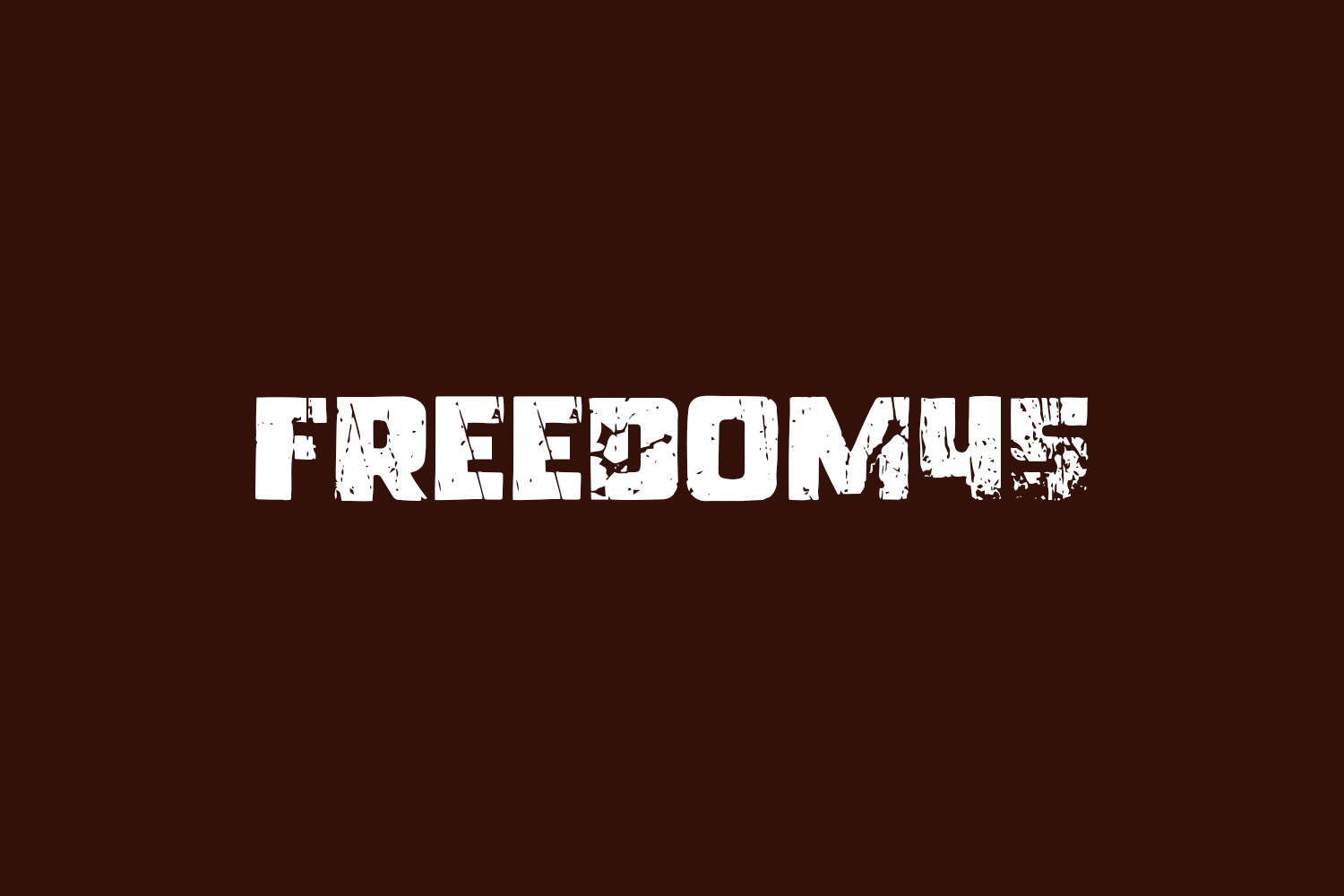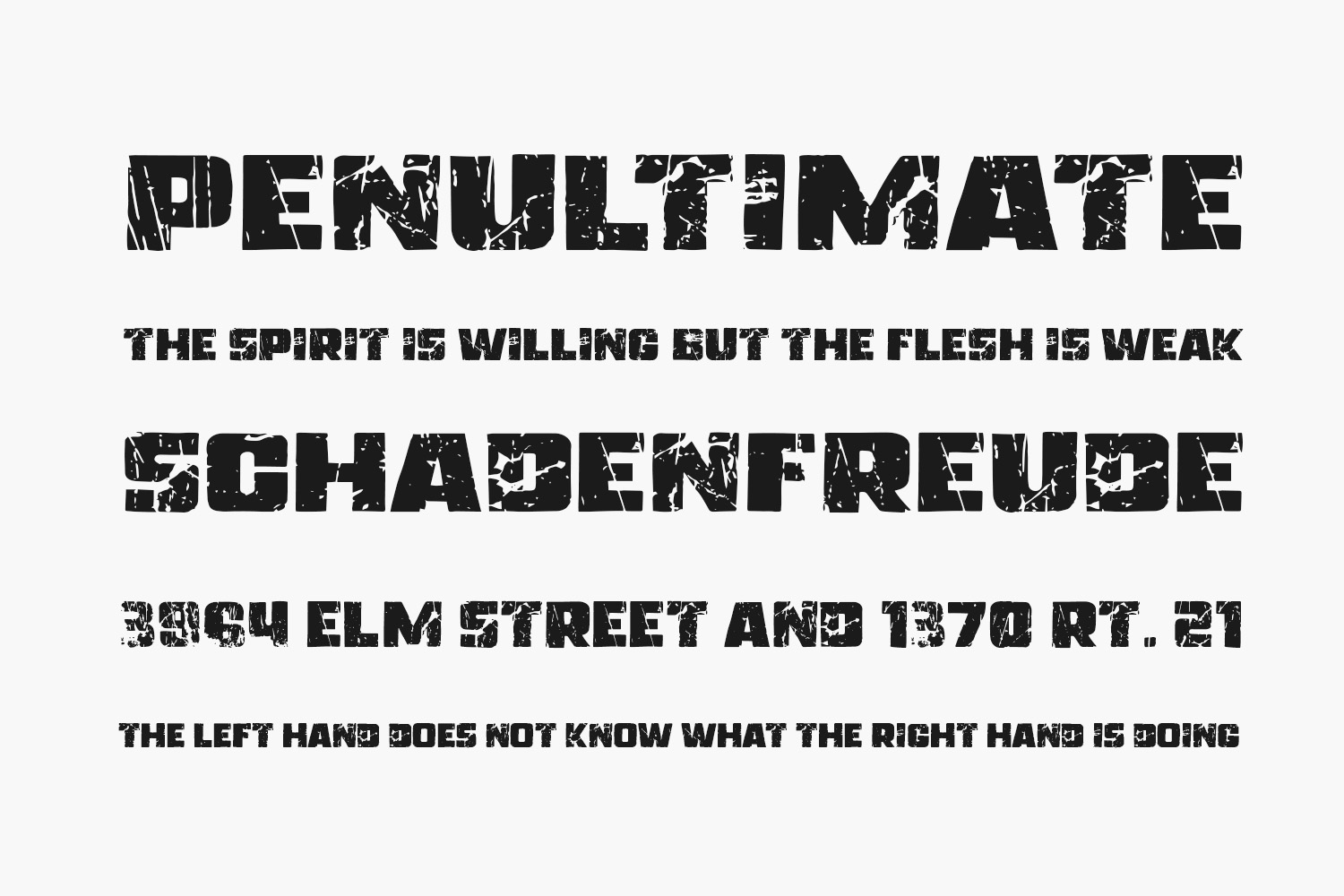
Experience the contemporary elegance of Freedom45 Free Font, a rough-edged sans-serif font ideal for a myriad of design applications such as posters, logos, magazines, book covers, banners, and beyond. Elevate your creative projects with this distinctive typeface, adding a touch of quirkiness that enhances their visual appeal. With its versatility, Freedom45 seamlessly complements an extensive range of projects, making it a valuable asset for your imaginative ventures, ensuring they capture attention effortlessly. Freedom45 Free Font is free for personal use only. Please purchase the full version for commercial use.